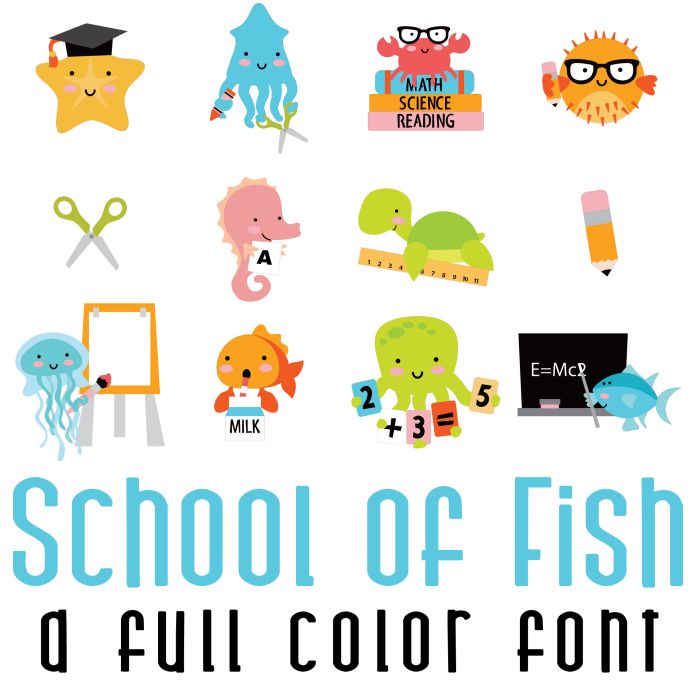
This fun full color font features 26 cute fish and sealife ready for school and perfect for cards, crafts, gifts, classrooms, scrap booking, planner stickers and more!